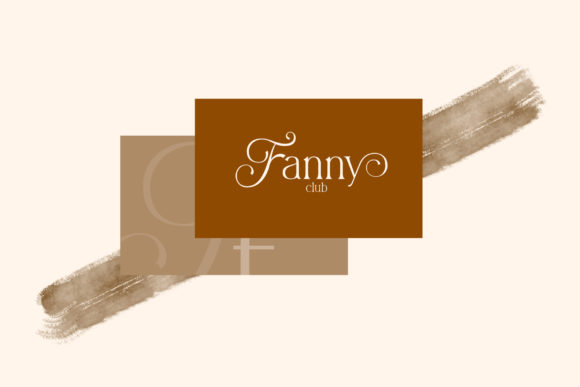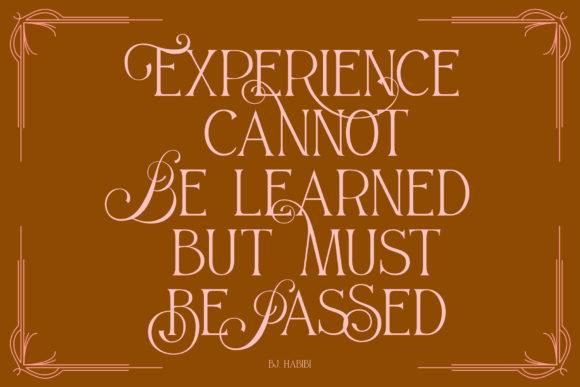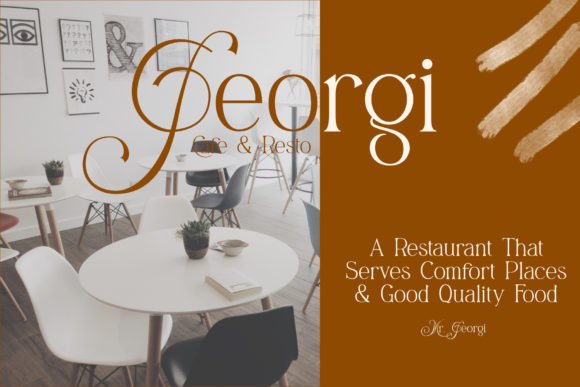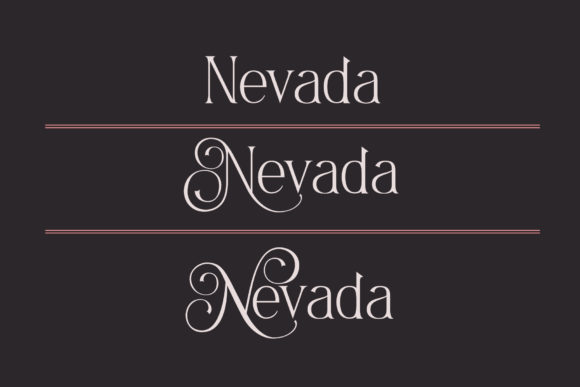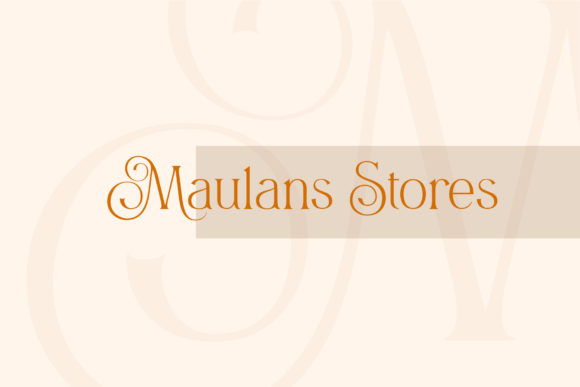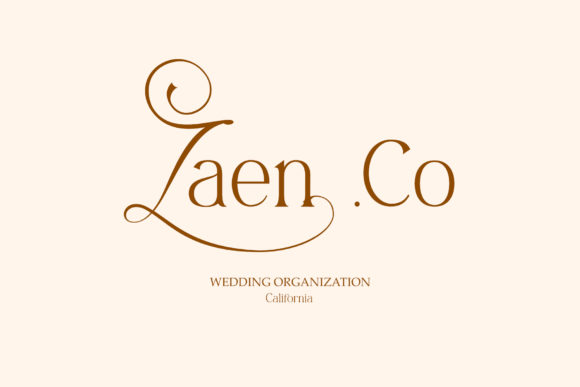
Introduction to Panerah Font
Have you ever been working on a creative project, pouring your heart and soul into every detail, only to feel like something is missing? That’s when the perfect design resource can make all the difference. For designers looking to elevate their work, we’re excited to introduce the Panerah Font, a stunning serif font that’s sure to take your designs to the next level.
This gorgeous font features beautiful swashes and an exquisite aesthetic, making it the perfect choice for any design project. Whether you’re working on a branding project, creating a website, or designing a marketing campaign, the Panerah Font is sure to make your work stand out. With its high-quality design and transparent background, this font is a valuable resource for any designer looking to add a touch of sophistication to their work.
- Designed with a modern and elegant aesthetic, making it suitable for a wide range of creative projects.
Honest Review: Panerah Font
I recently stumbled upon the Panerah Font, and I must say, it’s been a game-changer for my creative projects. The high quality of this font is evident in its smooth lines and elegant design, making it perfect for any design resource.
One of the standout features of the Panerah Font is its transparency, allowing for seamless integration into any background. This feature has been a lifesaver for me, especially when working on projects with transparent backgrounds. ✨
However, I do have one minor complaint ⚠️: the font selection is limited, which might be a drawback for designers looking for a more extensive range of options.
Overall, I’m thoroughly impressed with the Panerah Font, and I highly recommend it to any designer looking for a high-quality, free design resource. Its transparency feature alone makes it worth the download, and I’ve already incorporated it into several of my projects. ✨”
Tips for Getting the Most Out of Panerah Font
Use the Panerah Font with a transparent background to create a seamless design. Experiment with different font sizes and styles to add visual interest to your design. Finally, combine the Panerah Font with other high-quality design resources to create a unique and eye-catching design.
The Panerah Font is ideal for use in a variety of creative projects, including business cards, brochures, and social media graphics. Its high-quality design makes it a popular choice for designers and non-designers alike.
Can I use the Panerah Font with a transparent background?
Yes, the Panerah Font is designed to work well with transparent backgrounds. This makes it ideal for use in graphics, logos, and other design elements where a transparent background is required.